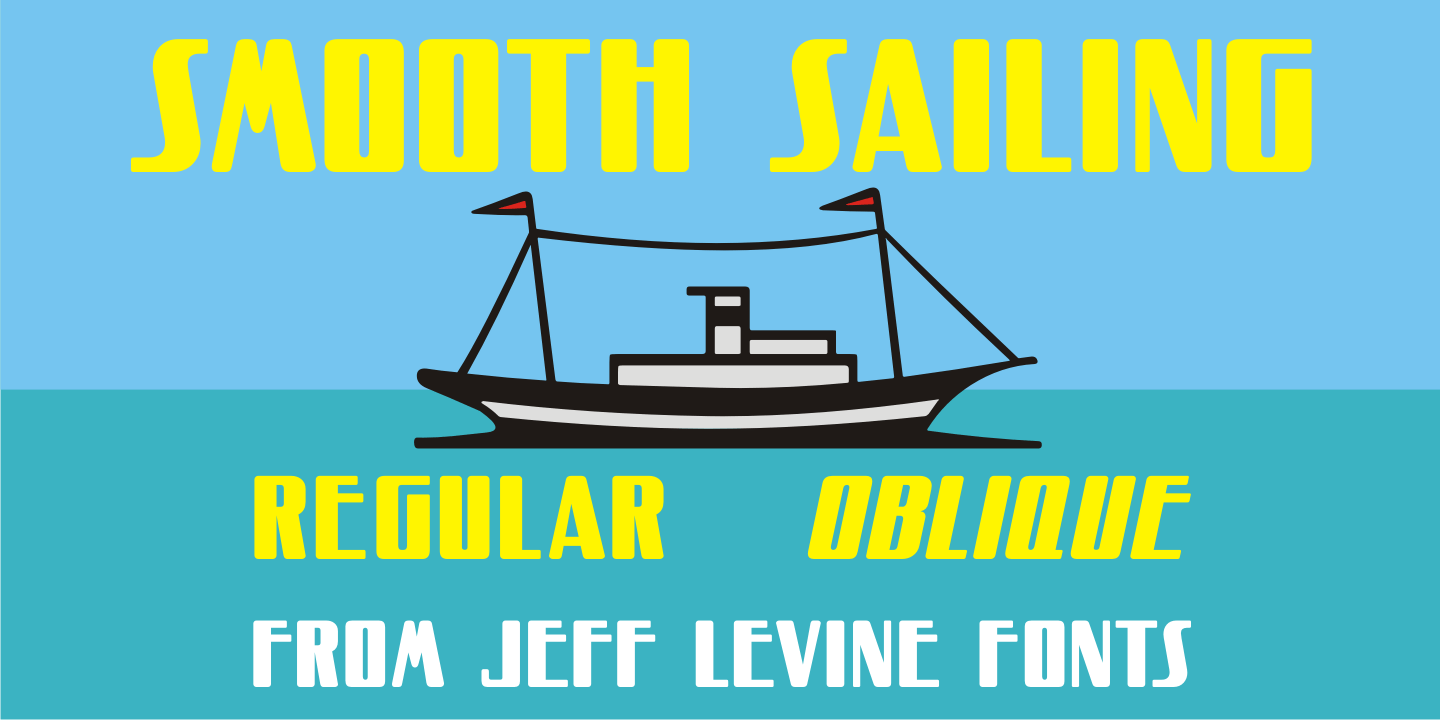
Smooth Sailing
Songs of the early 1900s were anything but the status quo in topic or style.
Excessively long titles, novelty tunes and 'foreign themes' permeated the piles of sheet music in the local music shops.
1916's 'Oh How She Could Yacki Hacki Wicki Wacki Woo (That's Love in Honolu)' covered a number of these quirks within one publication. This Hawaiian-tinged song evoked the mysterious ways of the South Seas islands, despite the abridging of Honolulu to 'Honolu'.
Nonetheless, the hand lettered title of this particular piece of sheet music featured an Art Nouveau-influenced bold block letter with rounded corners. It's now available digitally as Smooth Sailing JNL, in both regular and oblique versions.